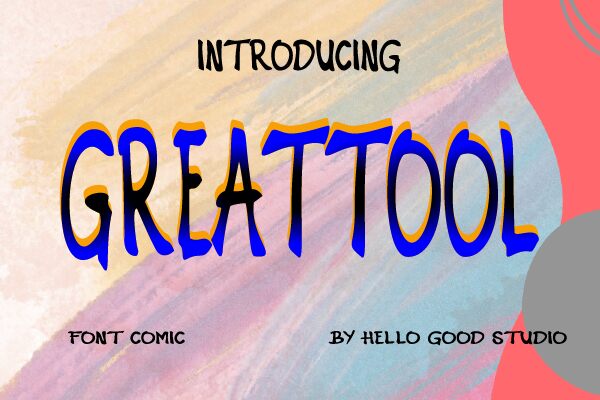
Greattool font is a whimsical cartoon font by Studio Hello Good. With vibrant letters full of modern decorative elements, it can transform any design into a superior version of itself. The concept of this geometric font revolves around simple structures that still maintain their energetic appearance.
Use each expressive letter at all sizes and in different settings to see which quirky design suits your projects. Fonts start conversations, and Greattool has loads of things to say with posters, notebooks, stickers, t-shirt designs, pins, and badges.